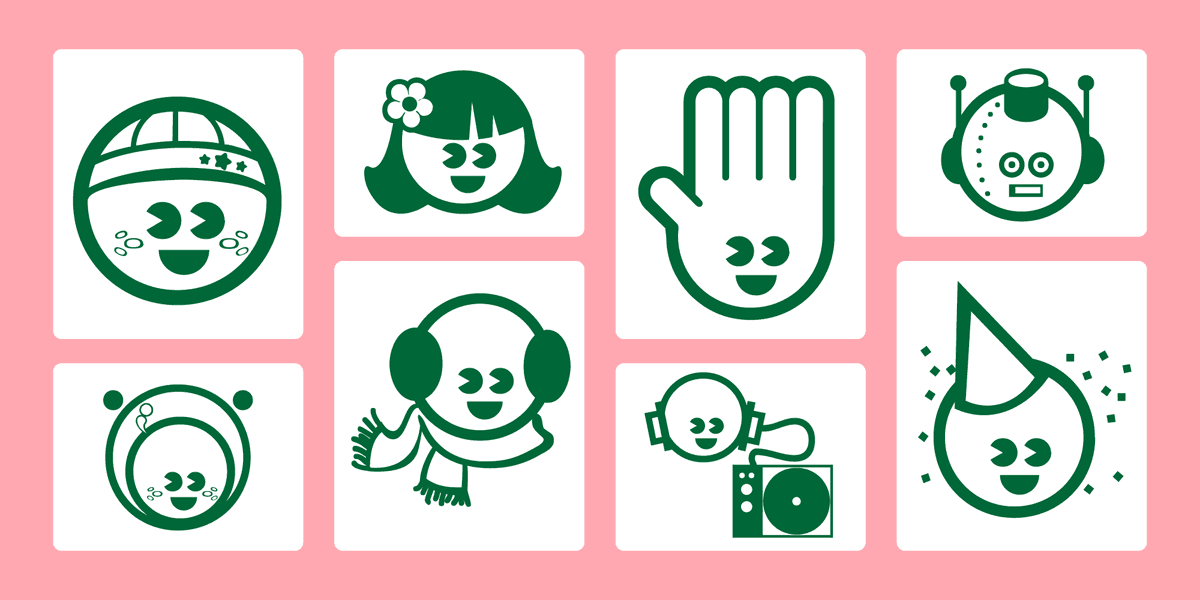
Chickabiddies was such a big hit with the dingbat-users, I decided to go down that road once again and build another set from scratch. My goal with this one was to make them even more cuter and more fresh-faced than e'er before.